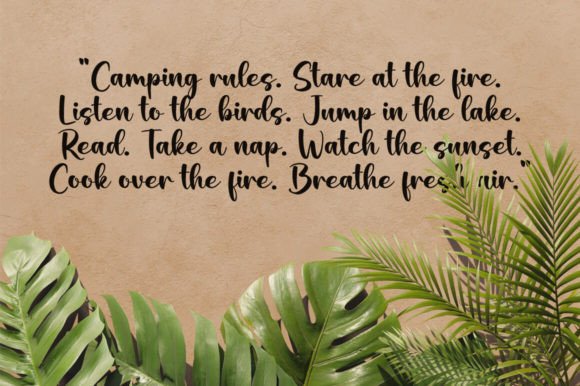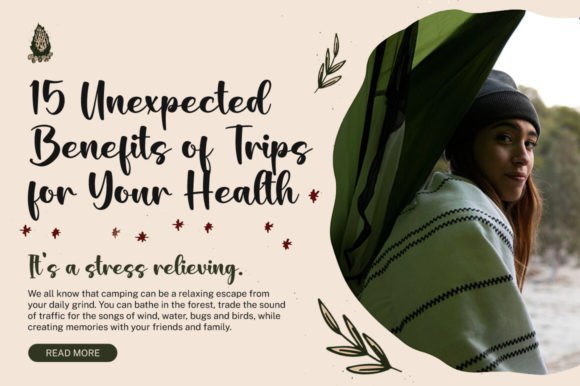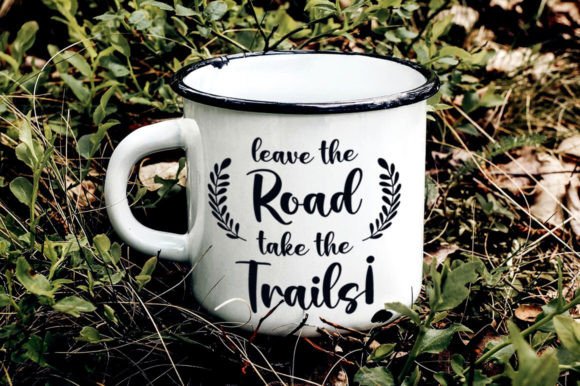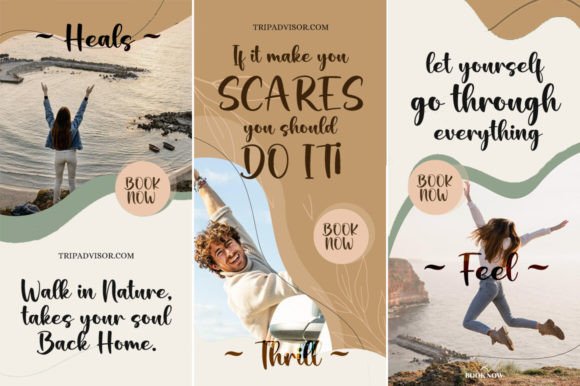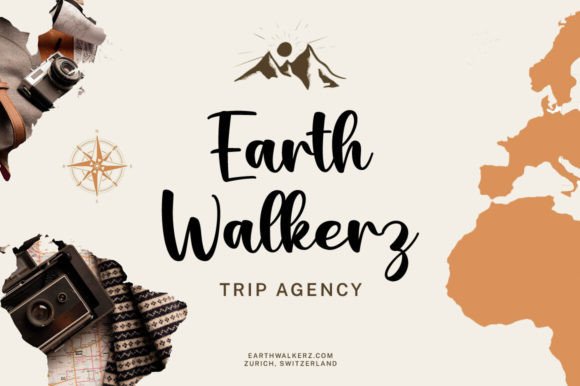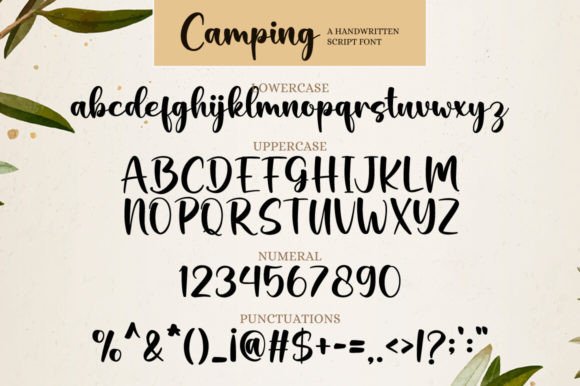
Unleash Your Inner Adventurer with Camping Font
Have you ever been on a camping trip and felt an overwhelming sense of creativity as you gazed up at the starry night sky? The stillness, the tranquility, and the connection with nature can be incredibly inspiring. For designers, finding that spark of creativity can be a game-changer. That’s where Camping Font comes in – a lovely and timeless handwritten font that’s perfect for creating eye-catching logos, branding, and quotes.
Camping Font is designed to evoke the feeling of freedom and adventure that comes with camping. Its unique, hand-drawn style adds a personal touch to any design project, making it stand out from the crowd. As a designer, you’ll appreciate the versatility of Camping Font, which can be used for a wide range of applications, from social media graphics to print materials.
Camping Font Key Features
- Size: The font family includes 12 weights, ranging from Thin to Extra Bold.
- Unique Characteristics: Camping Font features a rustic, outdoorsy feel with handwritten letterforms and subtle texture, making it perfect for camping-themed designs, outdoor adventures, and nature-inspired projects.
- Language Support: Camping Font supports a wide range of languages, including Latin-based languages, Cyrillic, and Greek.
Camping Font Review
Overall, I think Camping Font has some great qualities, but it also has some areas where it falls short. Let’s dive in and explore both the highs and lows.
✨ Camping Font’s design is quite fitting for outdoor activities. It has a friendly, approachable vibe that’s perfect for camping-related products or websites. The font’s letterforms are clear and easy to read, even at smaller sizes.
- ✨ The font’s bold weight is great for headings, adding a nice touch of ruggedness to the design.
- ✨ The font’s flexibility in terms of line height and letter spacing is a plus, allowing designers to easily customize the look to fit their needs.
⚠️ Unfortunately, Camping Font’s legibility suffers when used at very small sizes or in low-resolution contexts. This could be a problem for designers who need to use the font in these situations.
- ⚠️ The font’s x-height could be a bit larger to improve readability, especially in text-heavy content.
- ⚠️ The font’s lack of italic and bold-italic styles limits its versatility.
Camping Font is a solid choice for outdoor-themed designs, but it may not be the best option for designers who need a highly legible font that works well in a variety of contexts. With some careful planning and customization, however, it can be a great addition to a design project.
Getting the Most Out of the Camping Font
To get the most out of the Camping Font, use it to create eye-catching headings and titles for your outdoor-themed projects. You can also use it to add a rustic touch to your designs.
The Camping Font is commonly used for:
- Outdoor-themed projects, such as camping trip guides and hiking trail maps.
- Rustic-themed projects, such as wedding invitations and outdoor decor designs.
- Adventure-themed projects, such as travel brochures and outdoor gear catalogs.